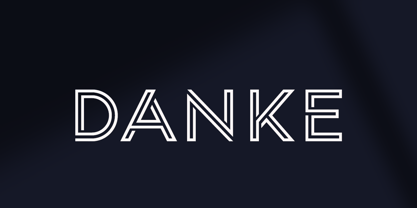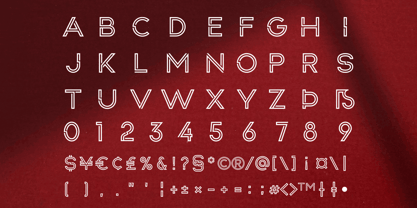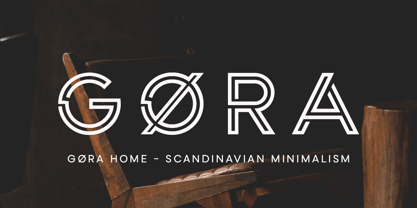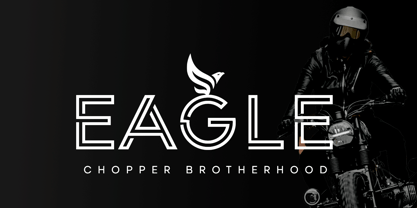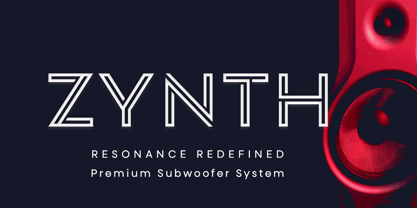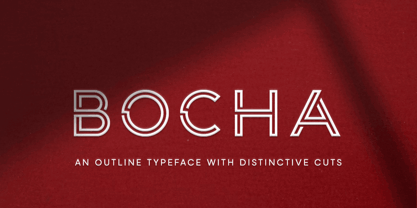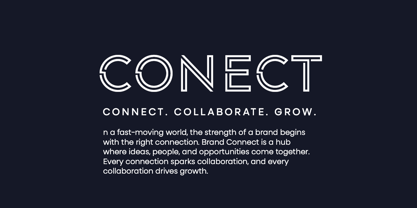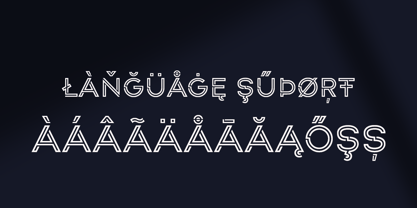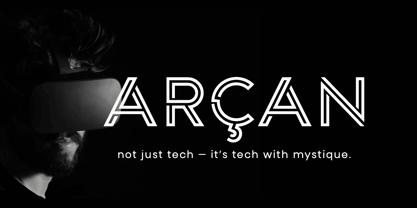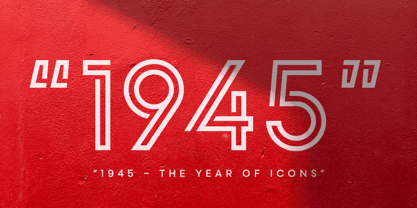
Bocha
von MMMA Creative
Die Schriftfamilie Bocha wurde von Muhammad Ridha Agusni, Muhammad Mevlana Maliq Azizi entworfen und von MMMA Creative veröffentlicht. Bocha enthält 1 Stile.
Bocha is an eye-catching all-caps outline display typeface characterized by its bold lines, sharp cuts, and geometric balance. Merging a futuristic aesthetic with retro charm, Bocha establishes a powerful visual identity that immediately captures attention. This versatile font is ideal for a variety of applications, including logos, posters, editorial layouts, and innovative branding projects, ensuring that every design stands out with authority and style. Explore the distinct features and multiple weights that make Bocha a compelling choice for impactful designs.
Designer: Muhammad Ridha Agusni, Muhammad Mevlana Maliq Azizi
Herausgeber: MMMA Creative
Foundry: MMMA Creative
Eigentümer des Designs: MMMA Creative
MMMA Creative is an independent type foundry based in Aceh, Indonesia, founded by Muhammad Mevlana Maliq Azizi. With a love for expressive letterforms, MMMA Creative focuses on creating display, graffiti, and handwriting fonts that carry a personal and creative touch.Inspired by urban culture and the freedom of visual expression, each typeface is crafted with care—whether it's bold graffiti styles or natural handwriting. MMMA Creative is a place where letters are shaped by passion, built with a DIY spirit, and made to connect through character.